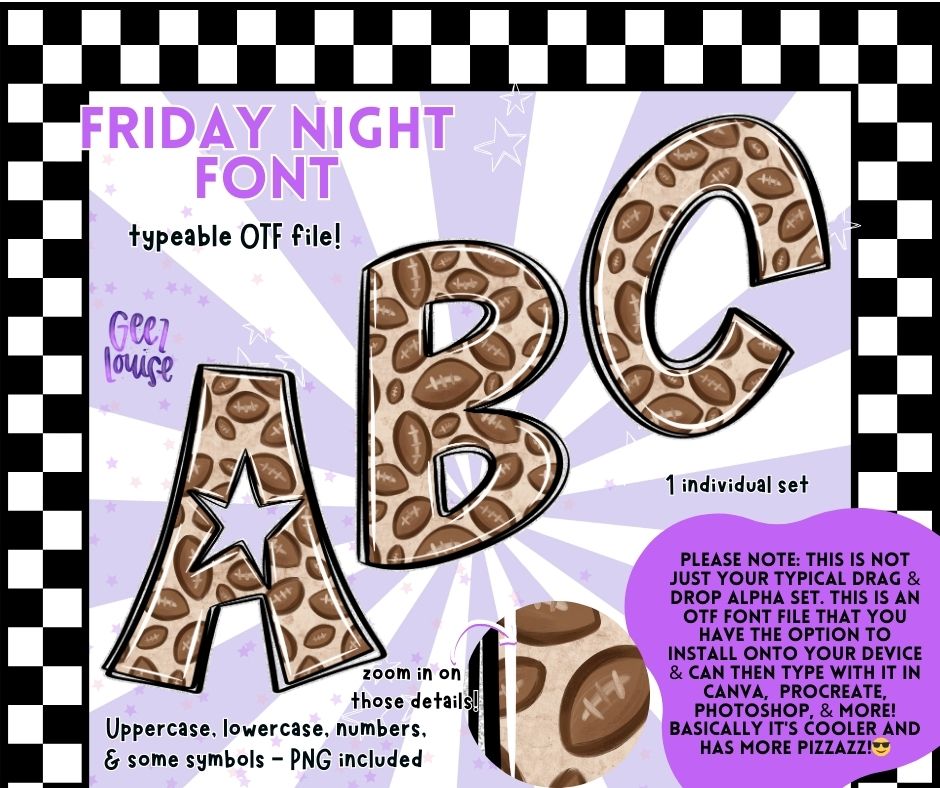
Bring Friday night lights to your next design with this football-themed font! The Friday Night Font features a hand-drawn look packed with personality and sports vibes. Perfect for football moms, team tees, banners, school spirit designs, and more.
A full A-Z font (uppercase & lowercase)
Numbers and select symbols
Whether you're crafting for a booster club or shouting out your favorite player, this bold and sporty typeface has your back. 🏈